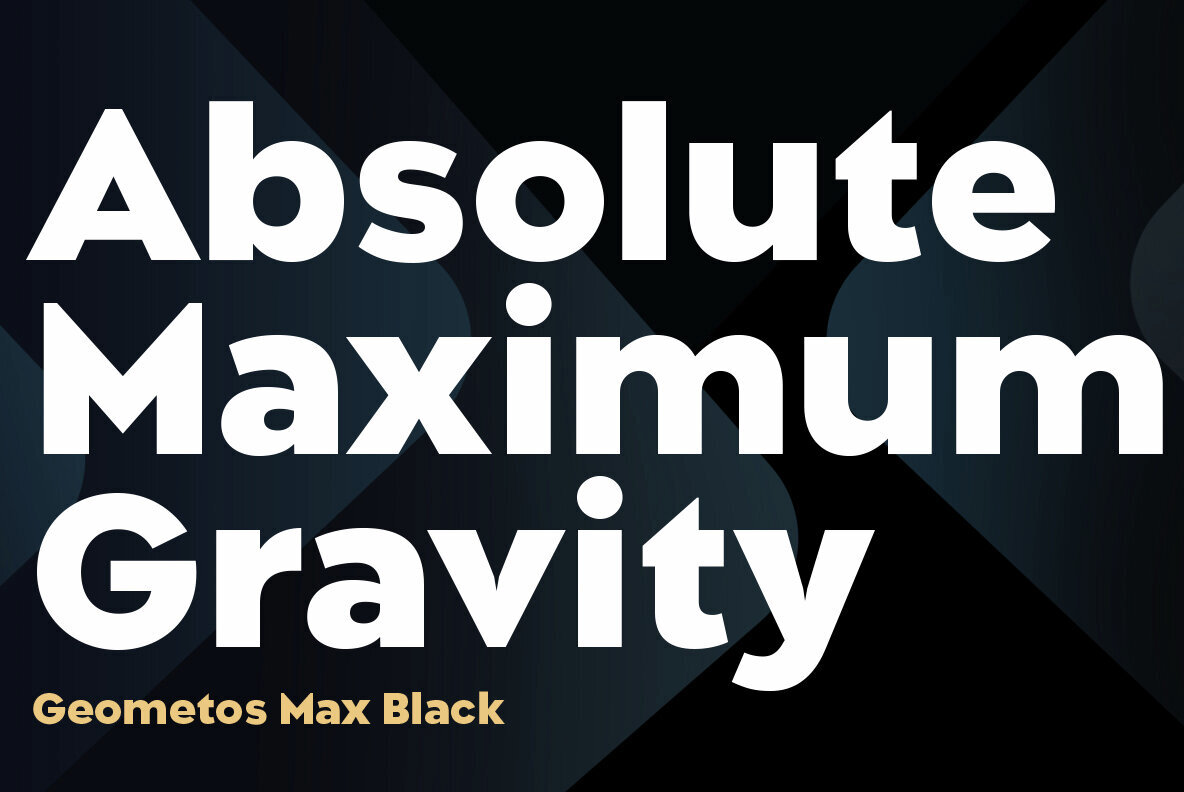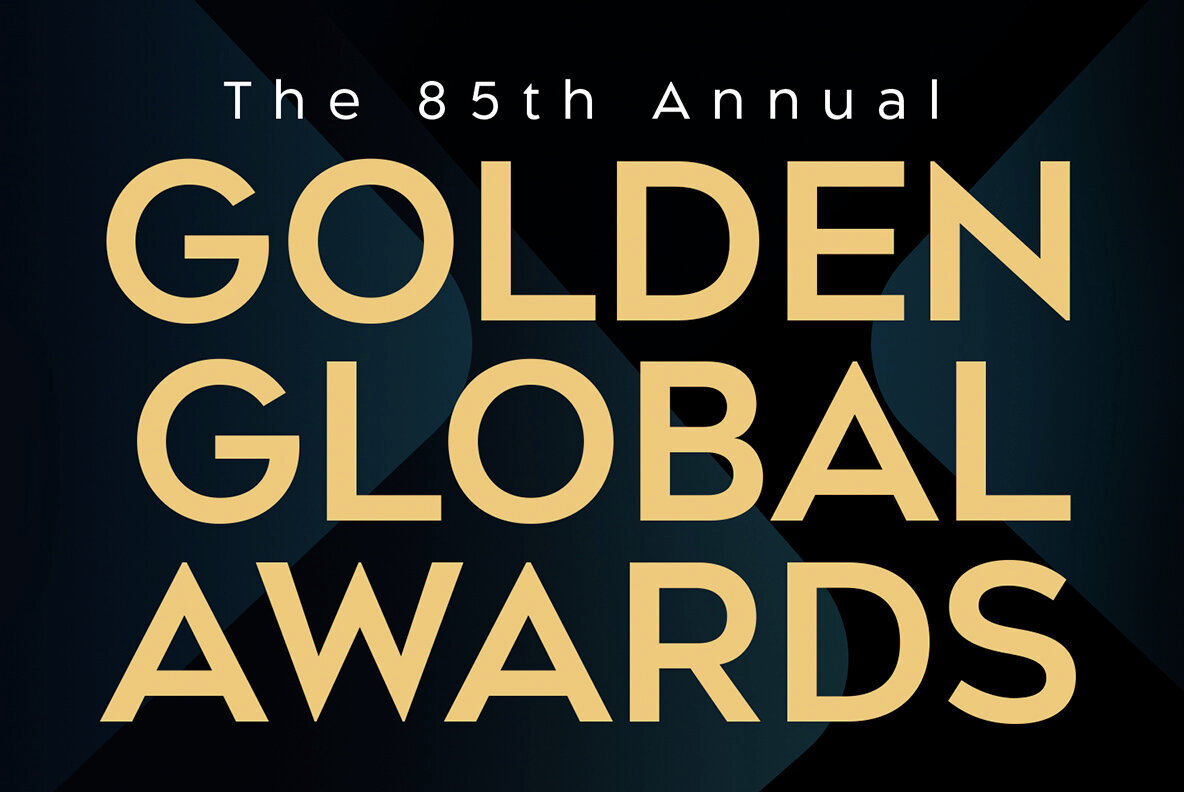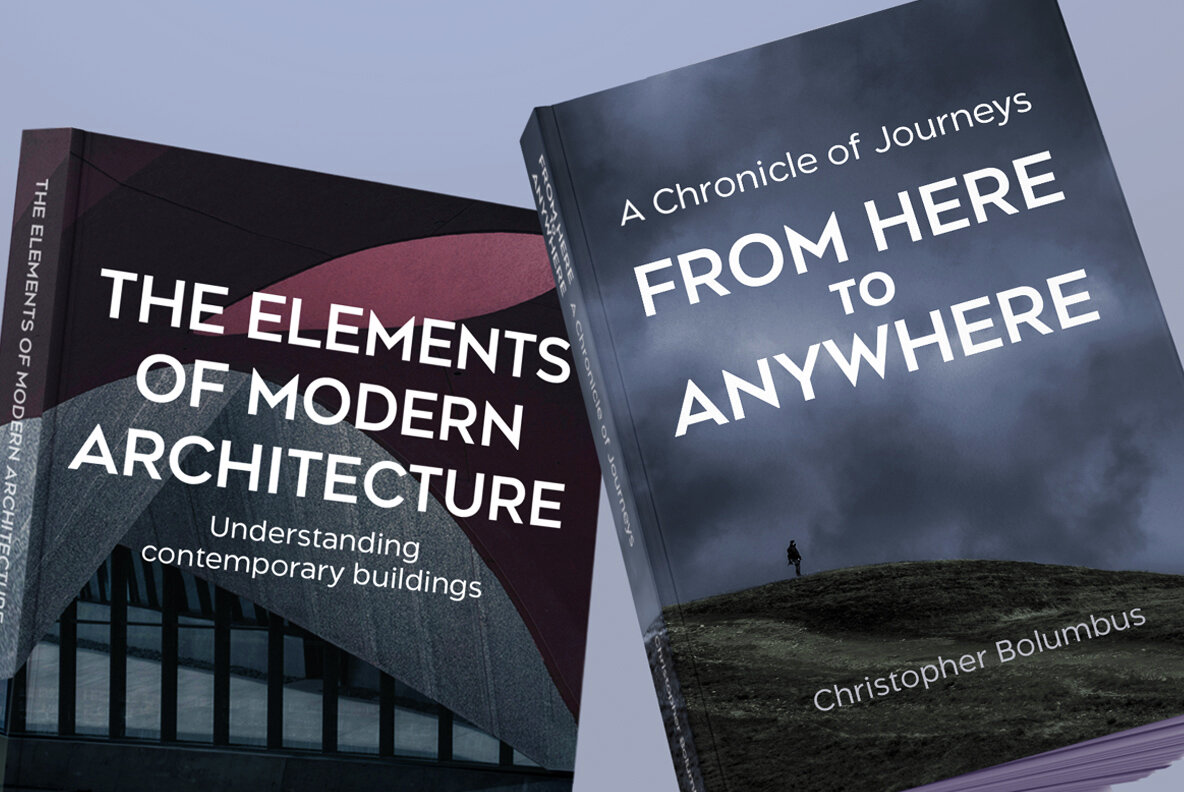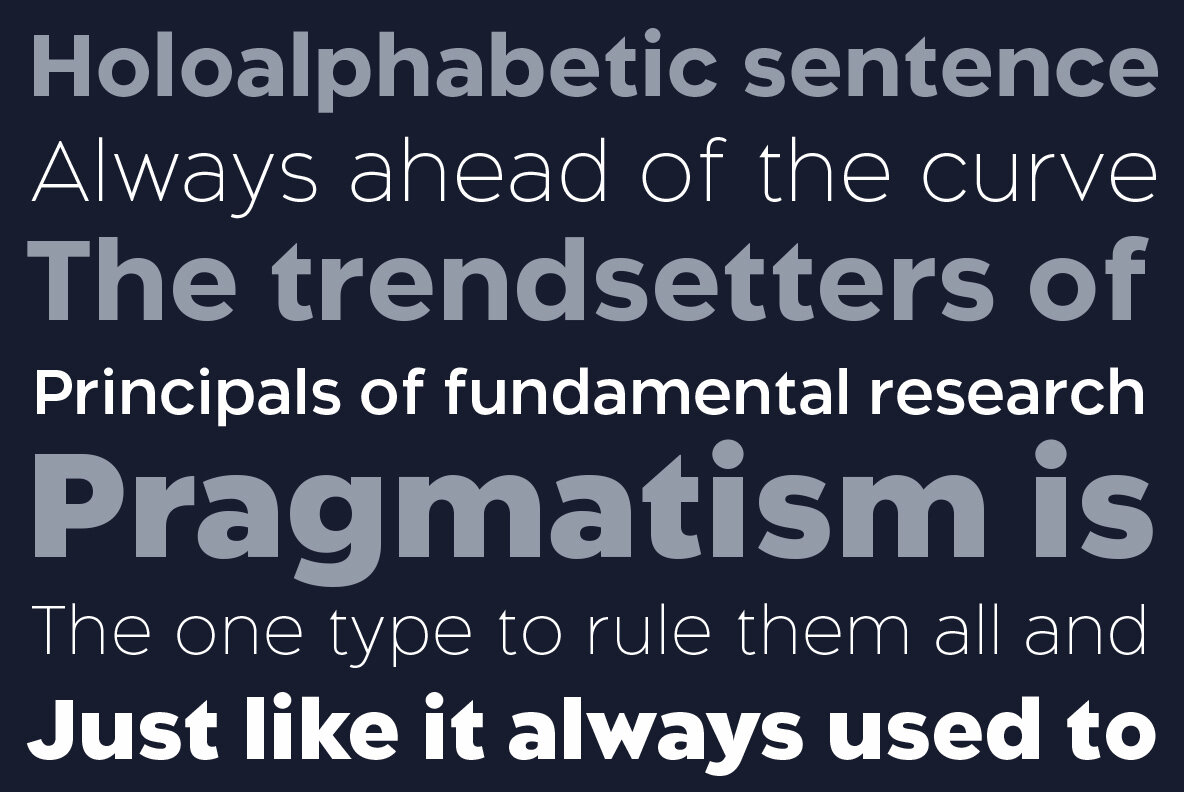
Geometos Max Font
Geometos Max is an updated version of the very popular Geometos Neue font family. While Geometos Neue is an all caps typeface, Geometos Max has both upper and lower case letters. It is a geometric sans-serif typeface which comes in seven weights and has a clean, sharp and emphatic form, which helps it to impart a distinct impactful look to any communication it is used in. It is well suited for both text and display uses and especially suitable for branding, editorial, advertising, packaging, titles, posters, logos and much more.